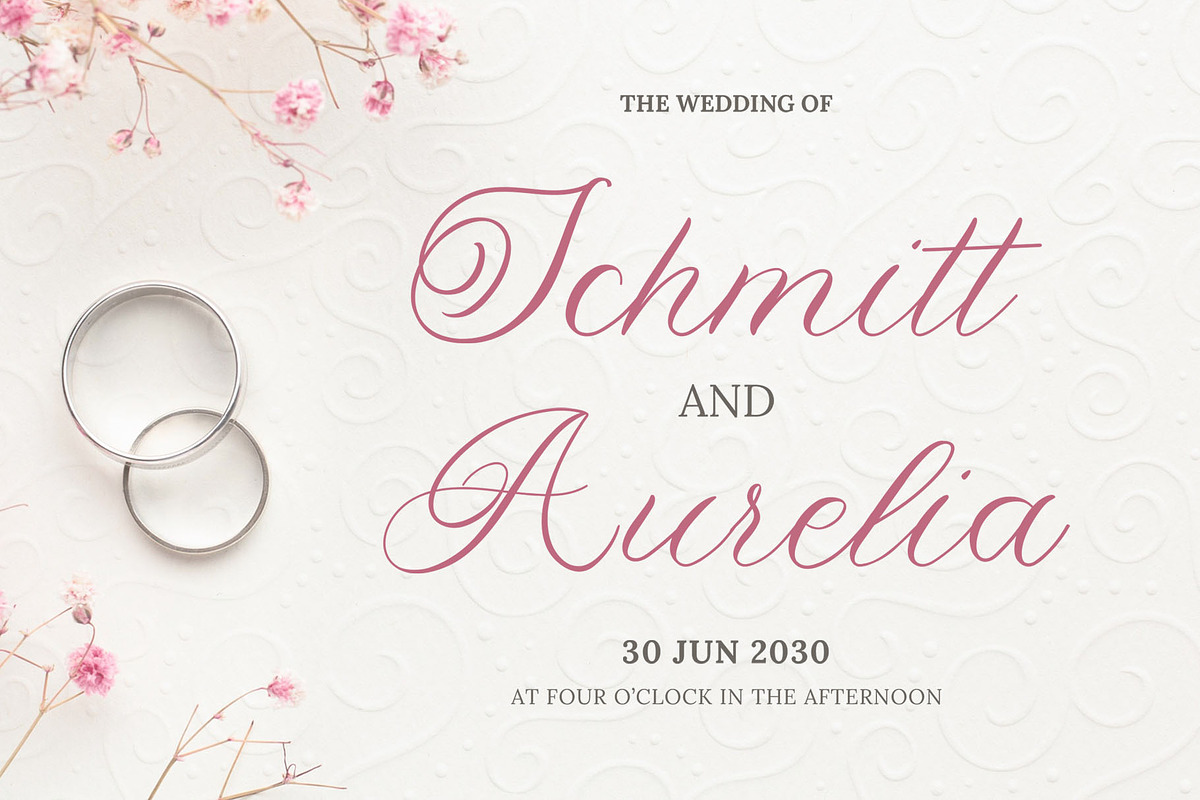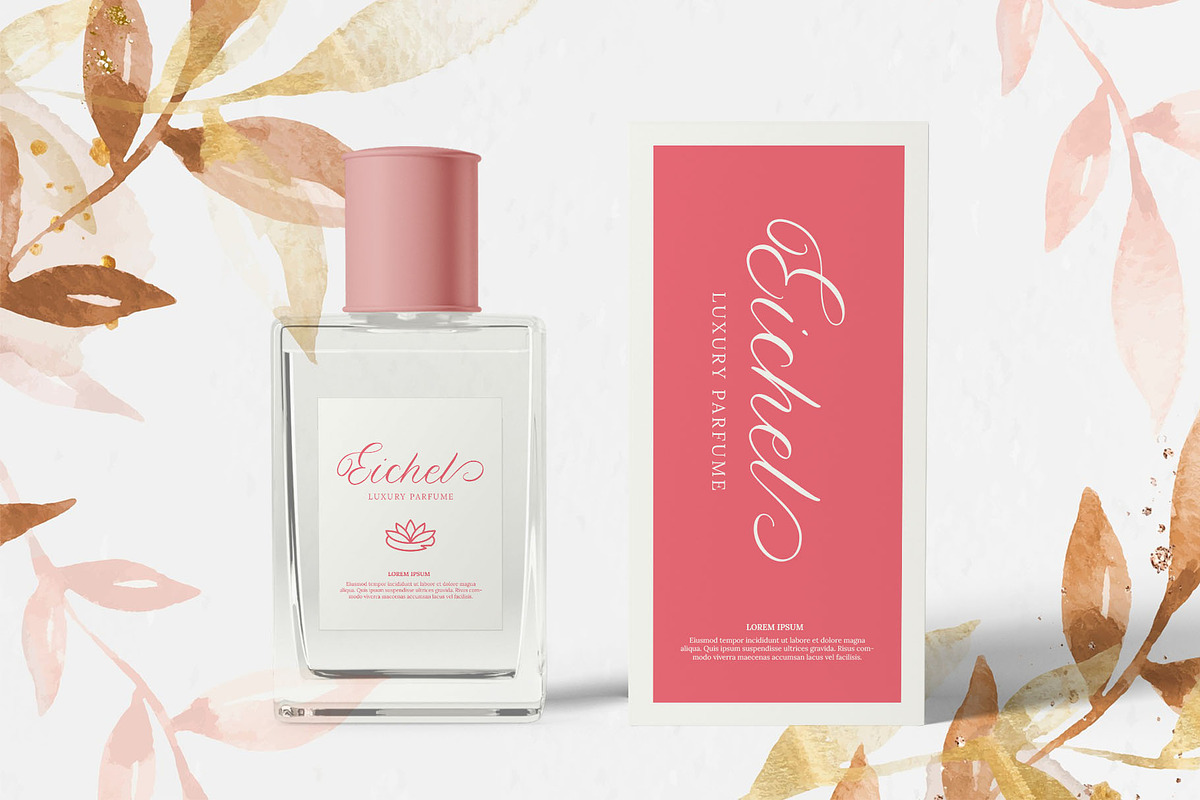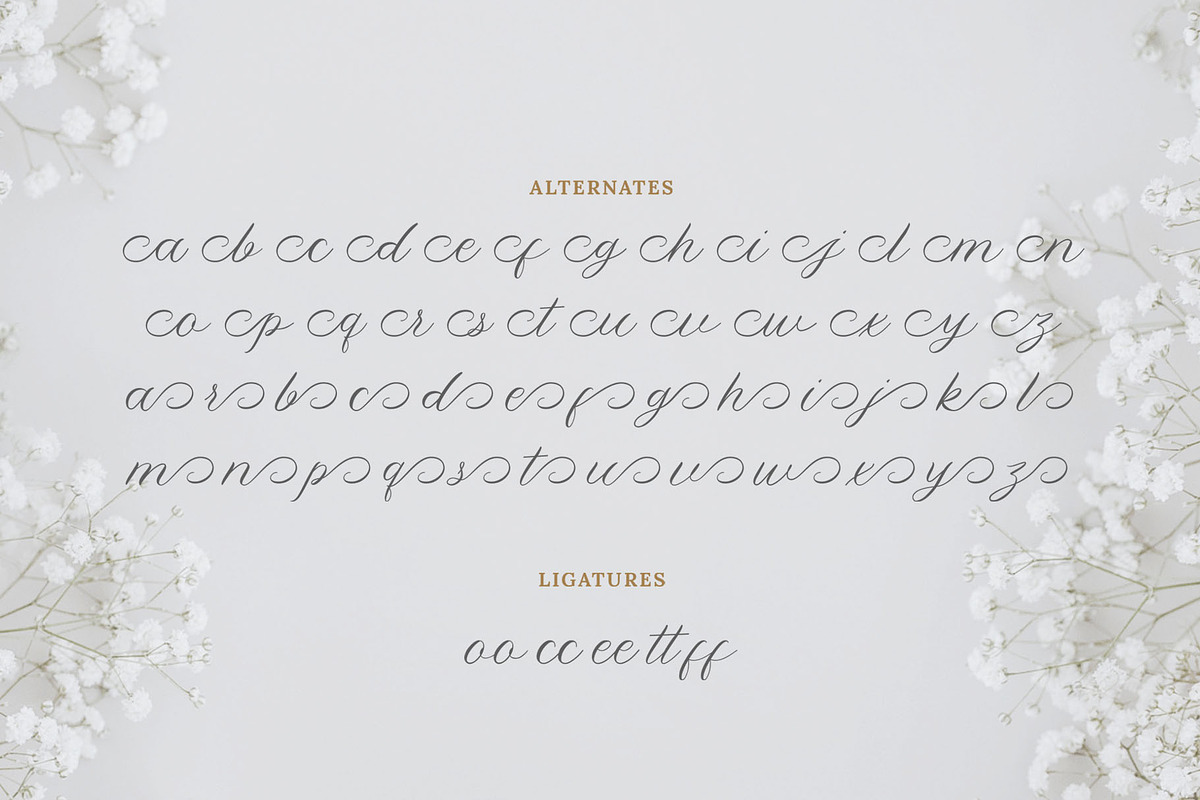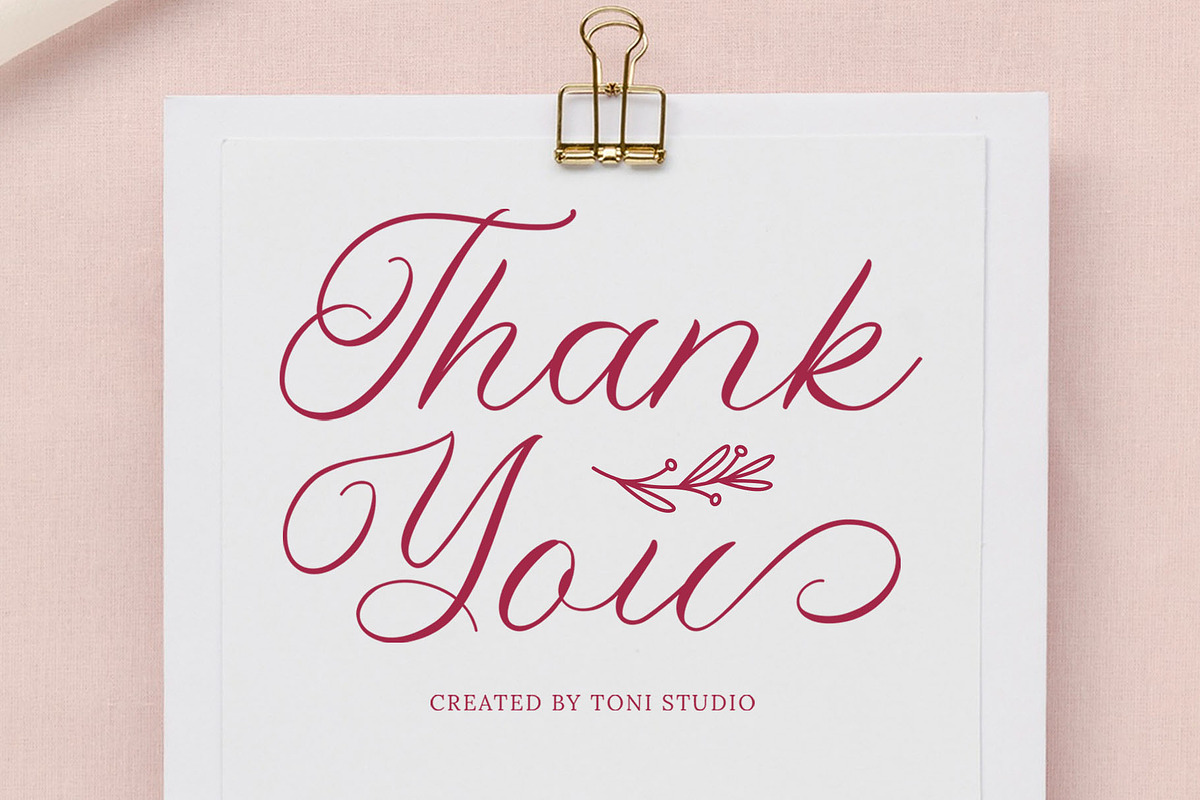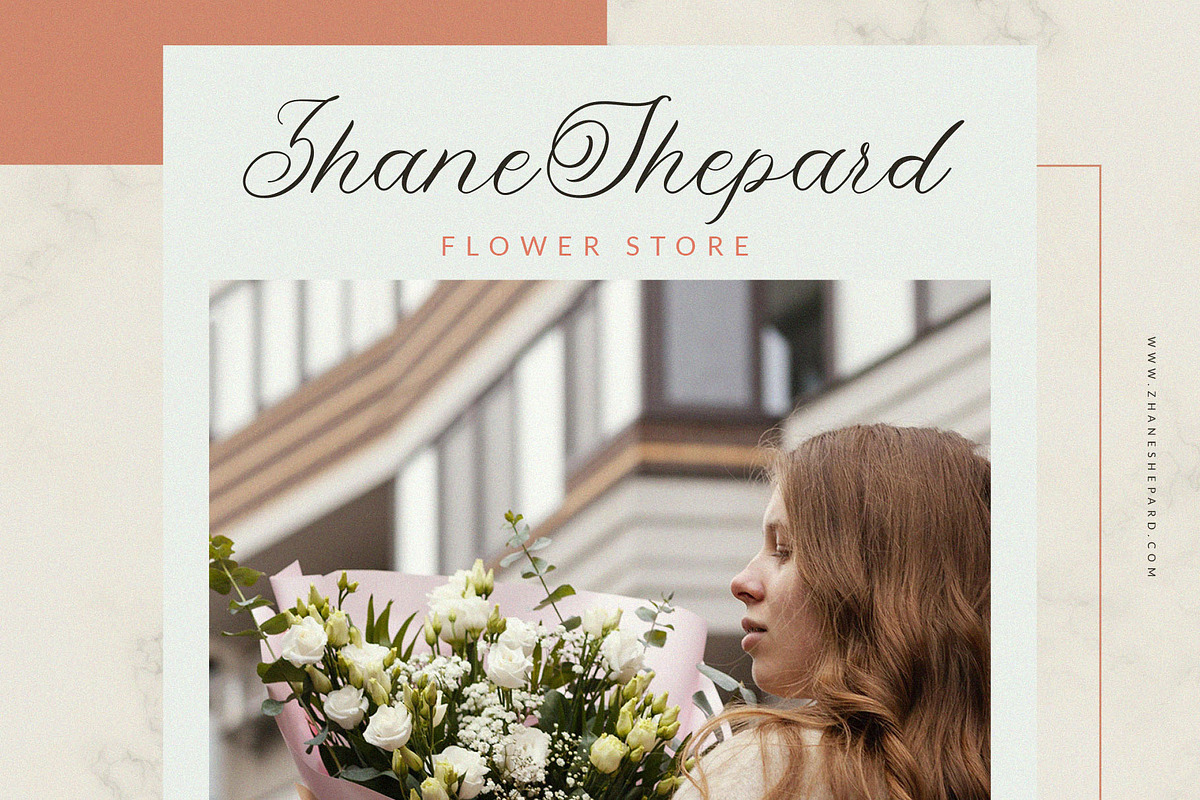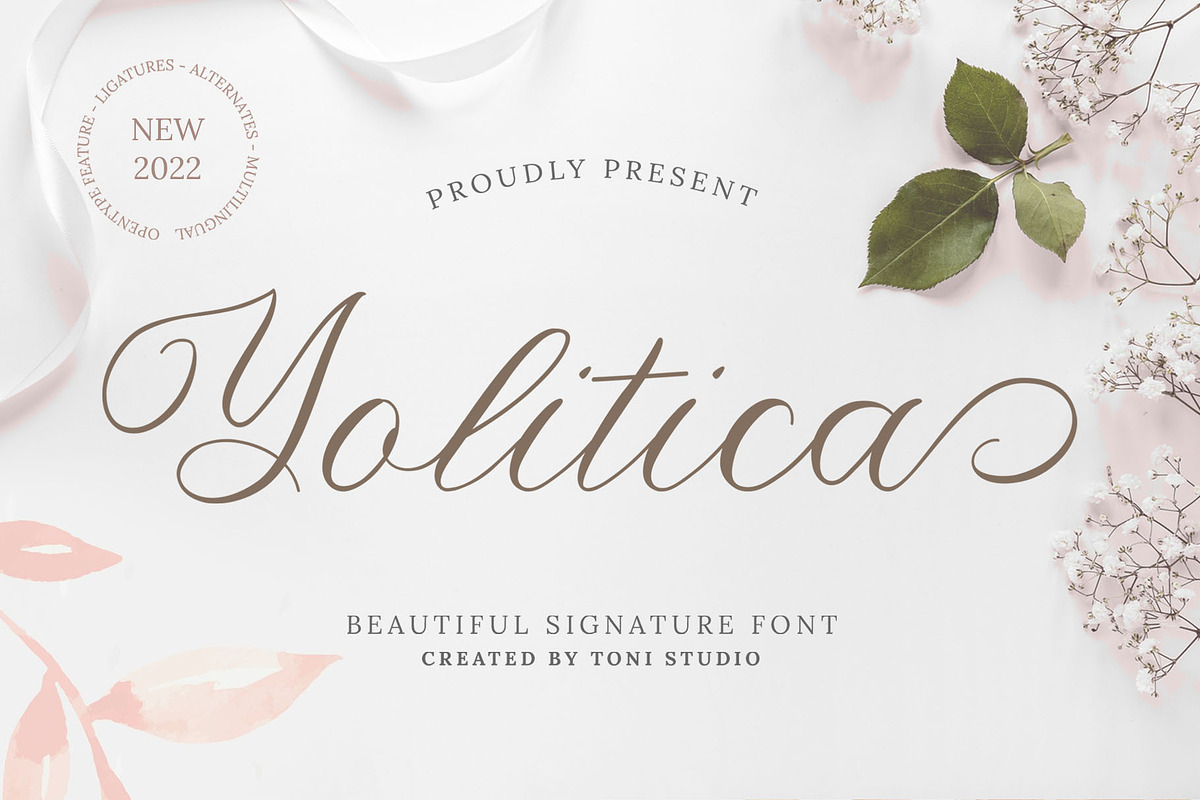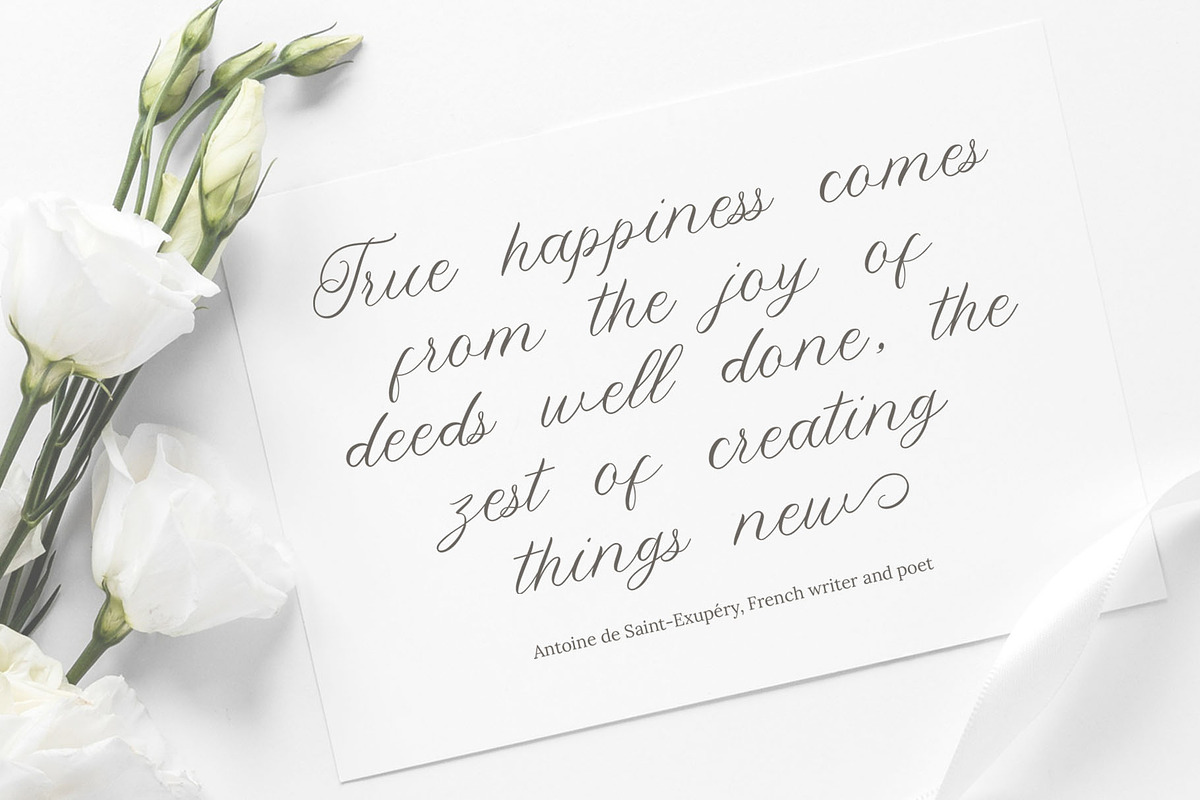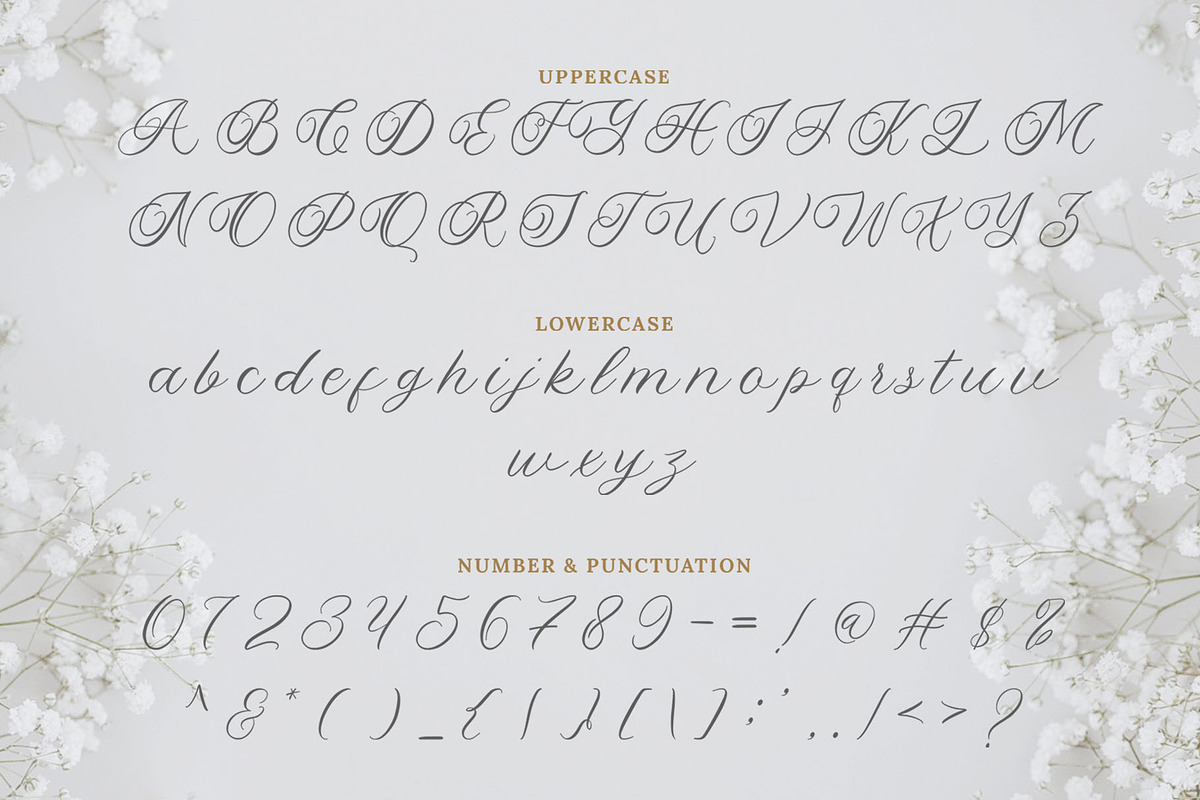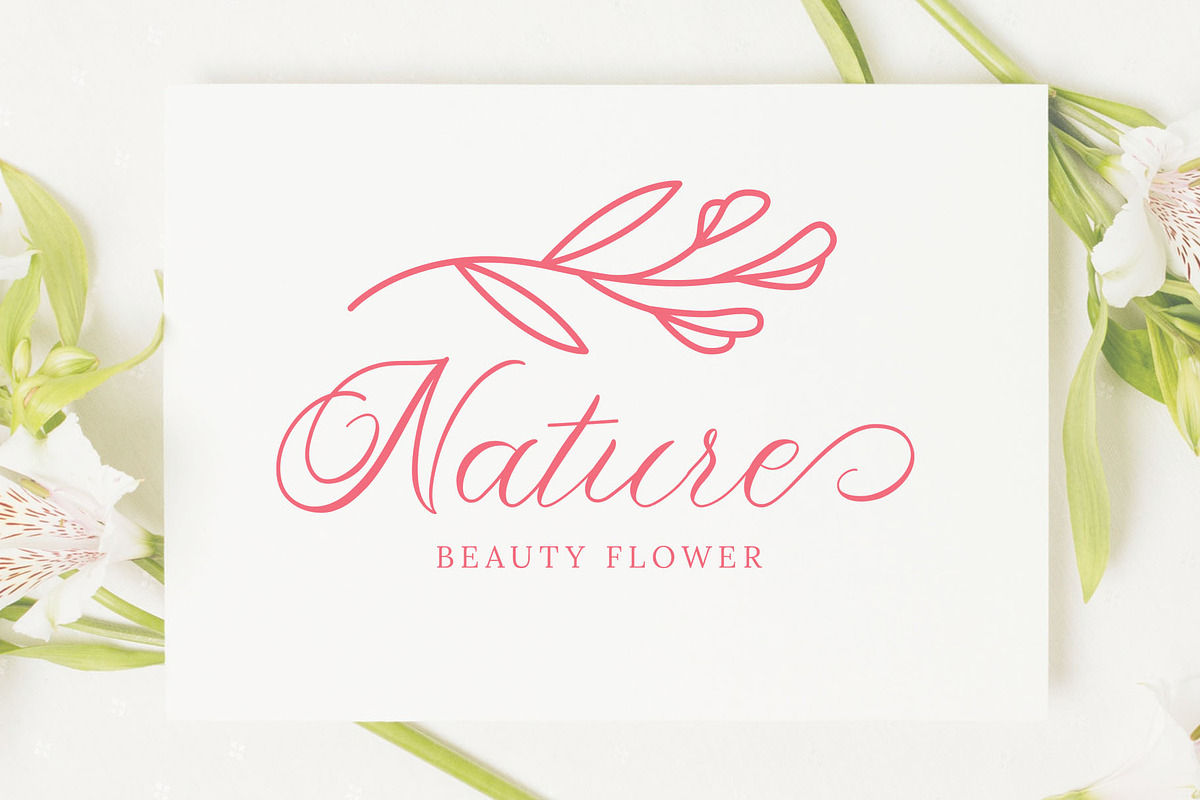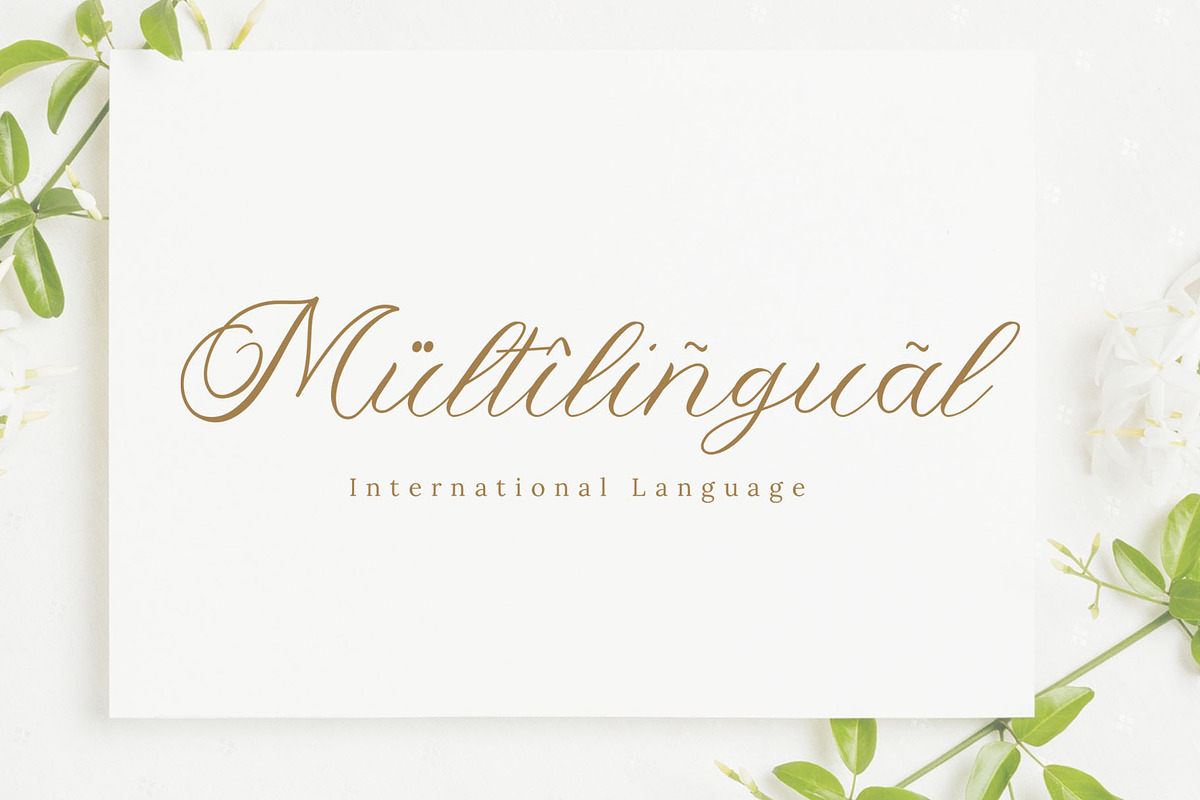
Yolitica |modern handwritten
Introducing the new font Yolitica, a modern handwritten script font with slight indentations that make the font look very beautiful. With a sophisticated flow, the Yolitica font is perfect for wedding scripts, elegant logos and branding, websites, calligraphy quotes, and more! includes a full set of Basic Characters Upper and Lowercase, Numbers and Punctuation. Also equipped with alternative fonts that will beautify and perfect in any of your extraordinary projects.